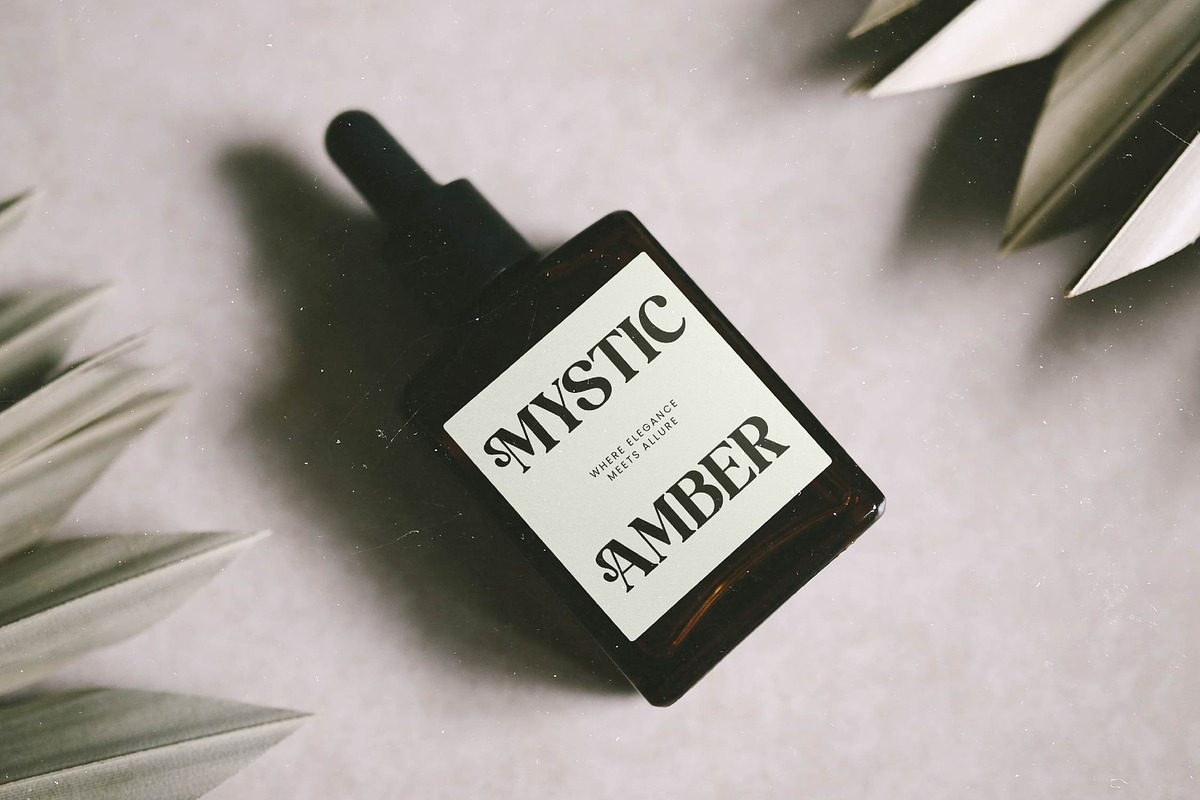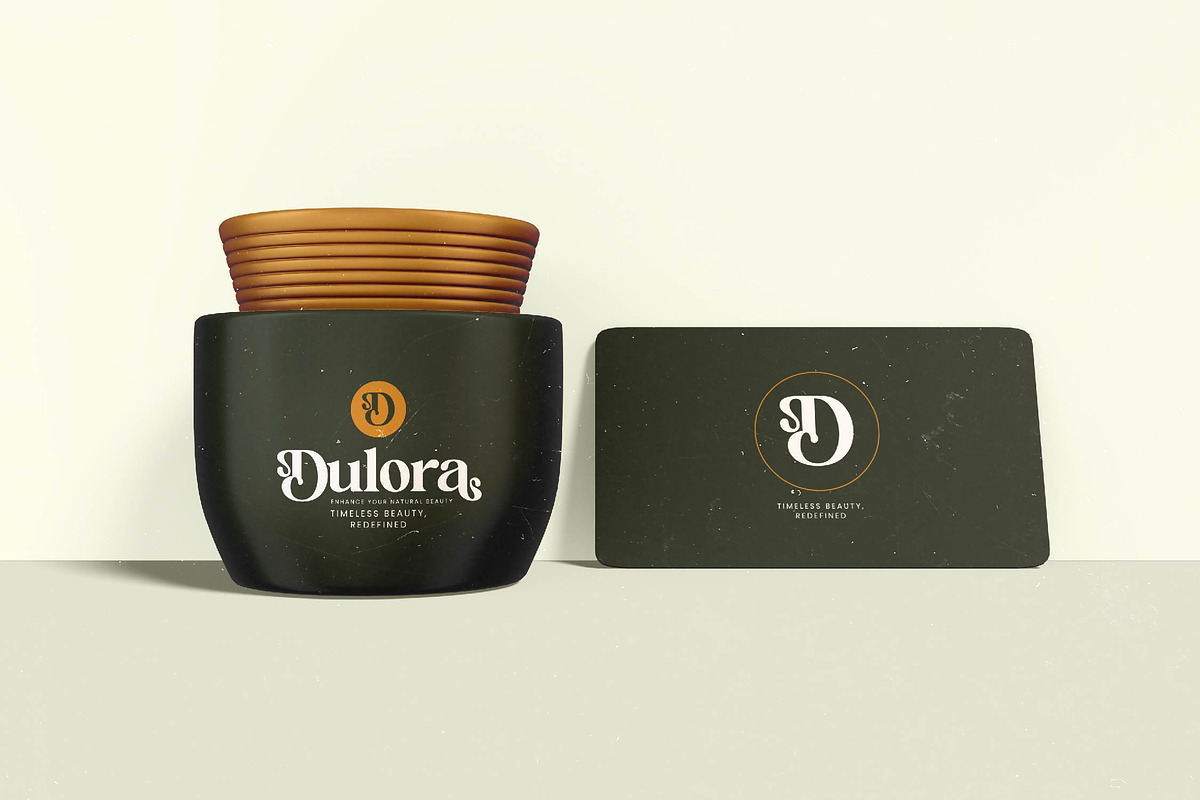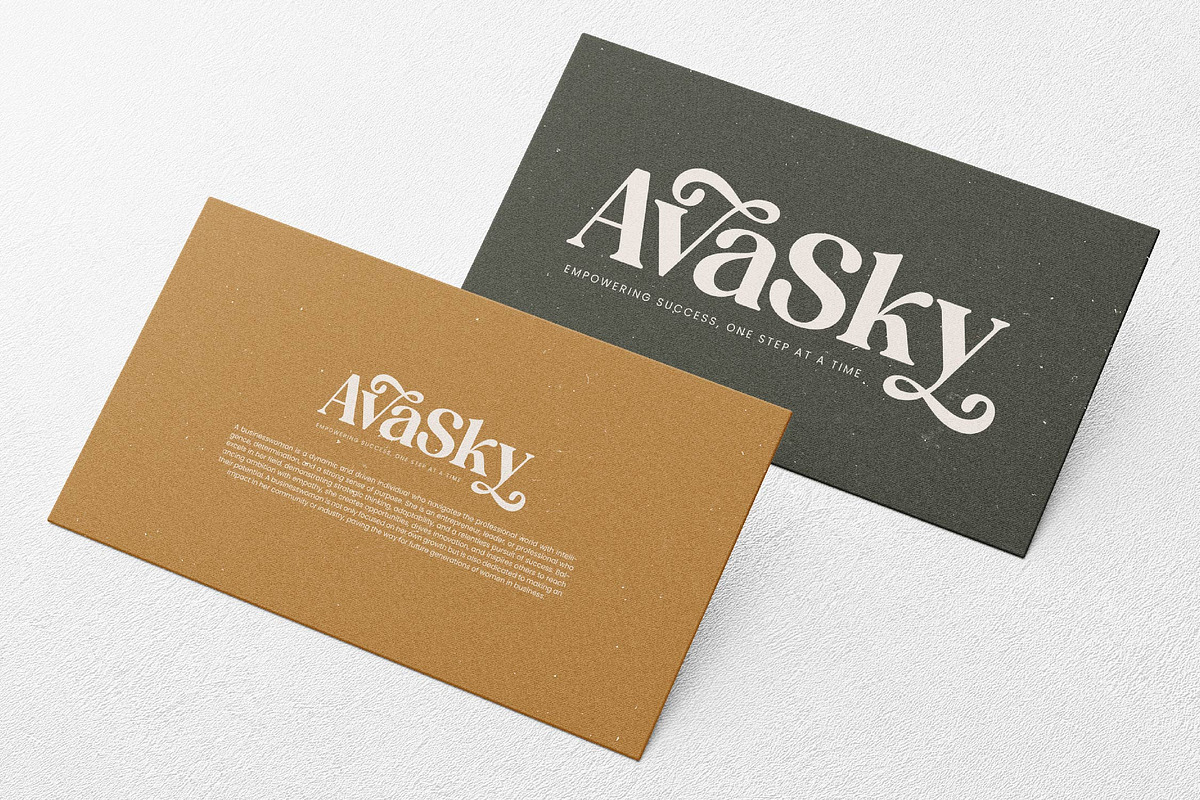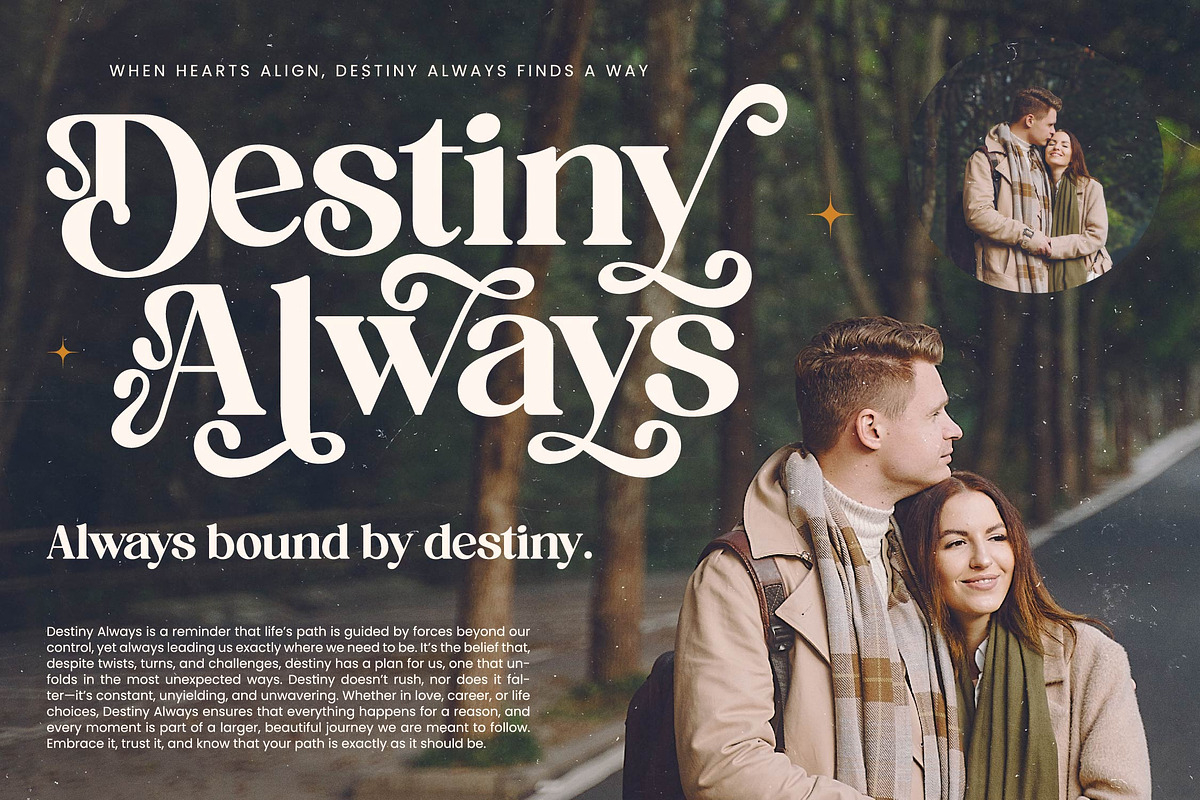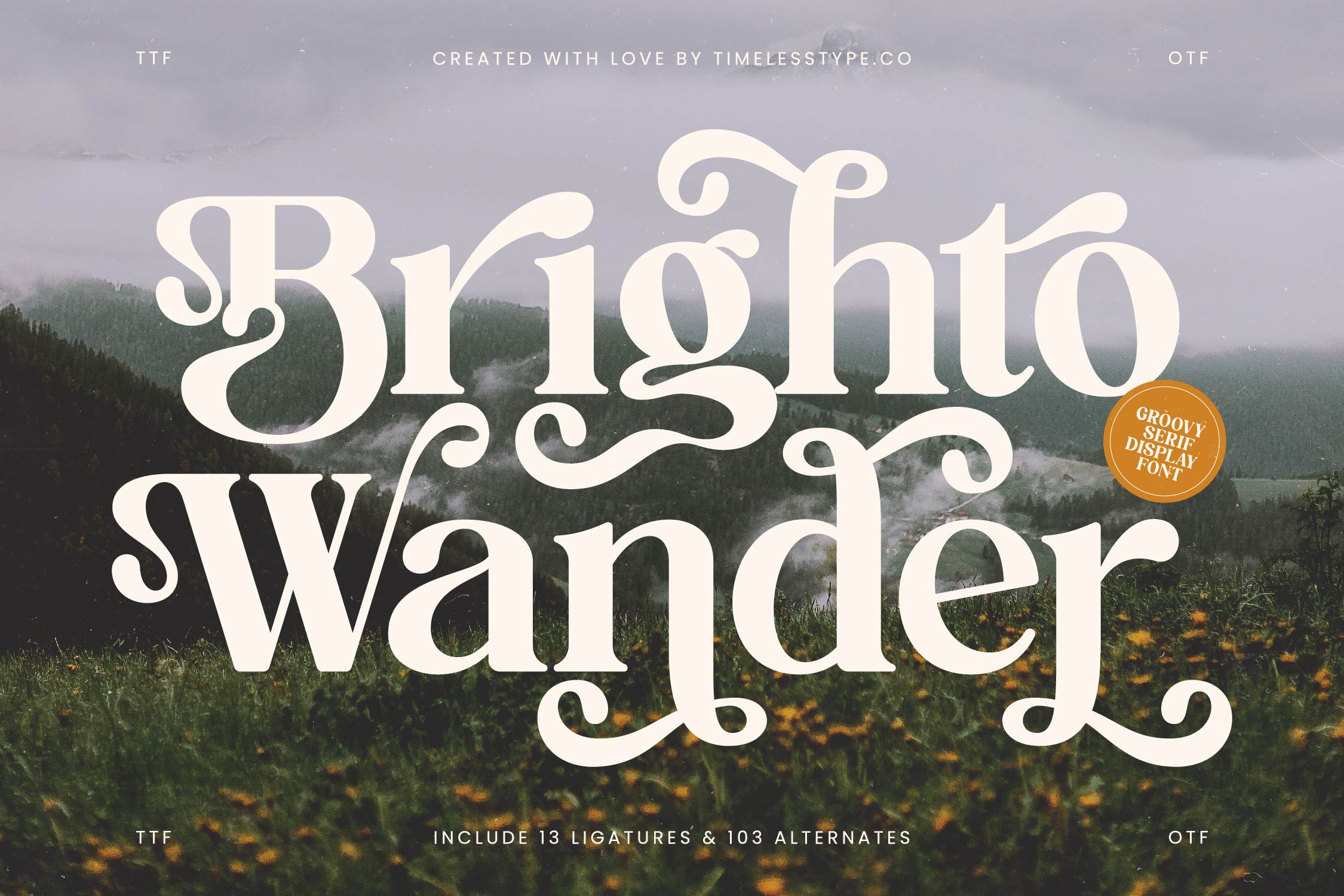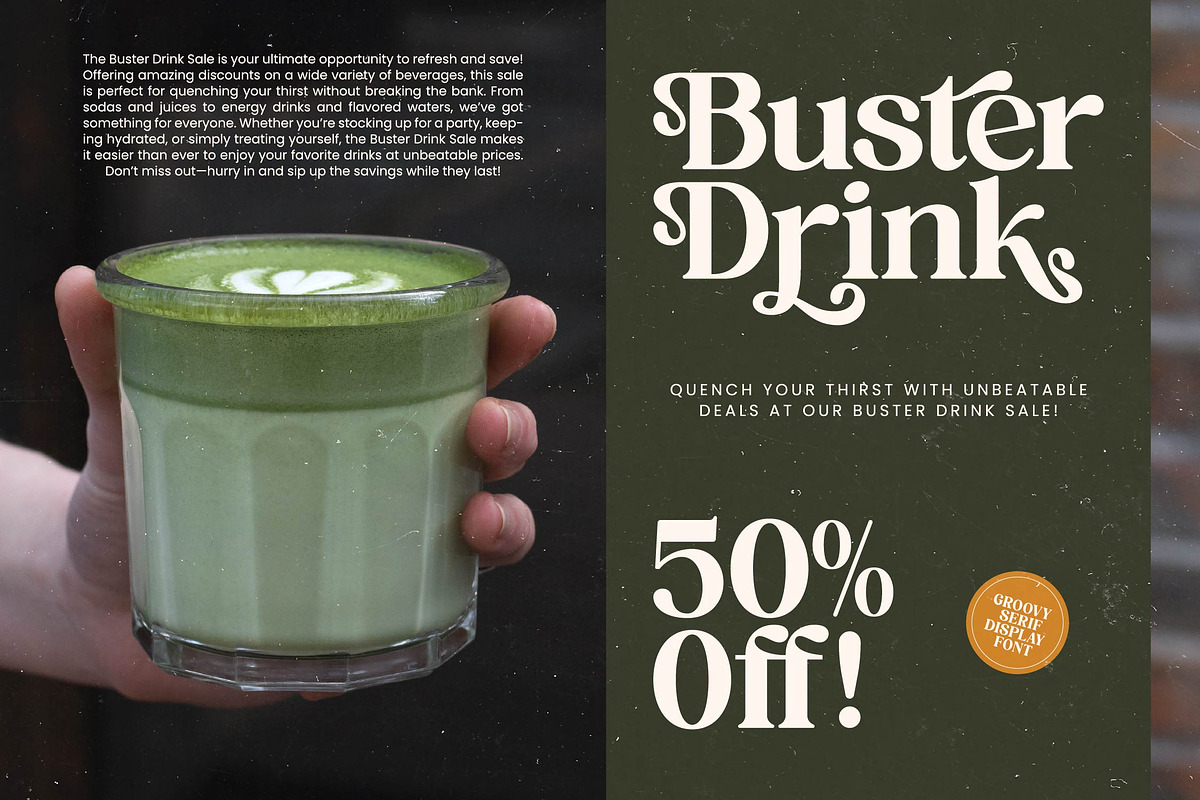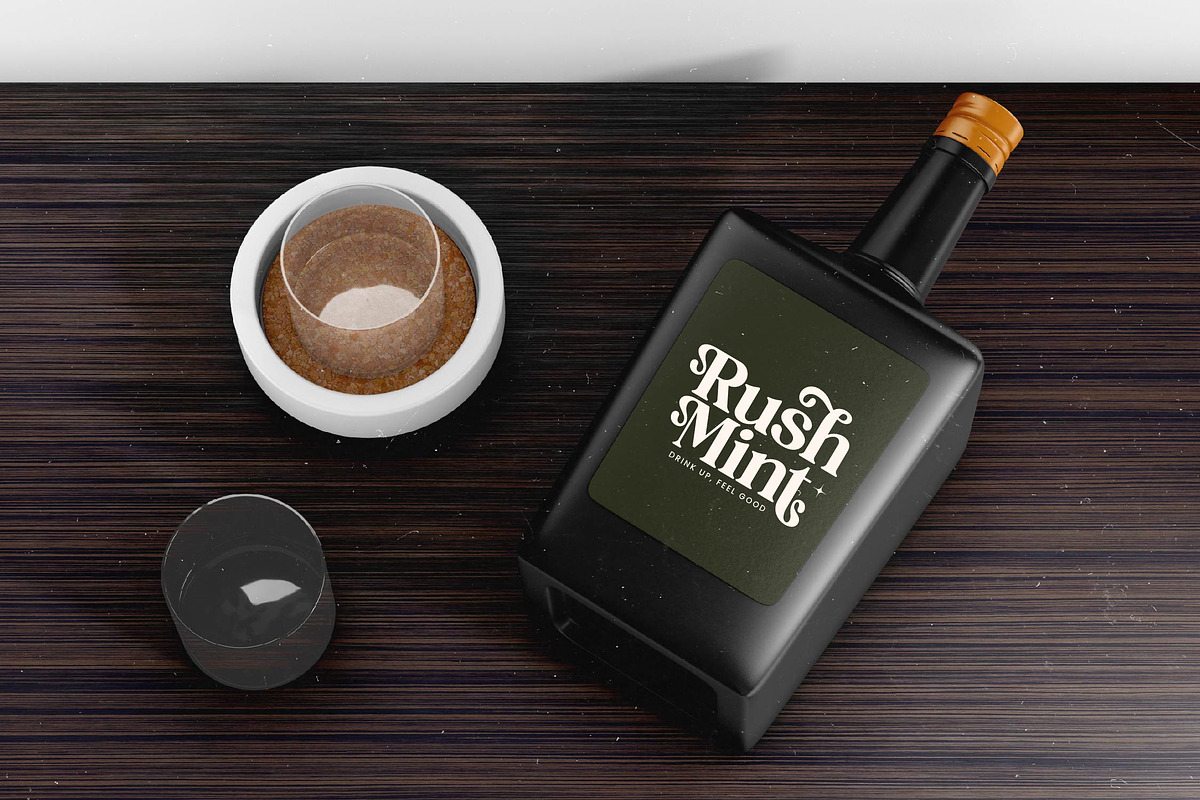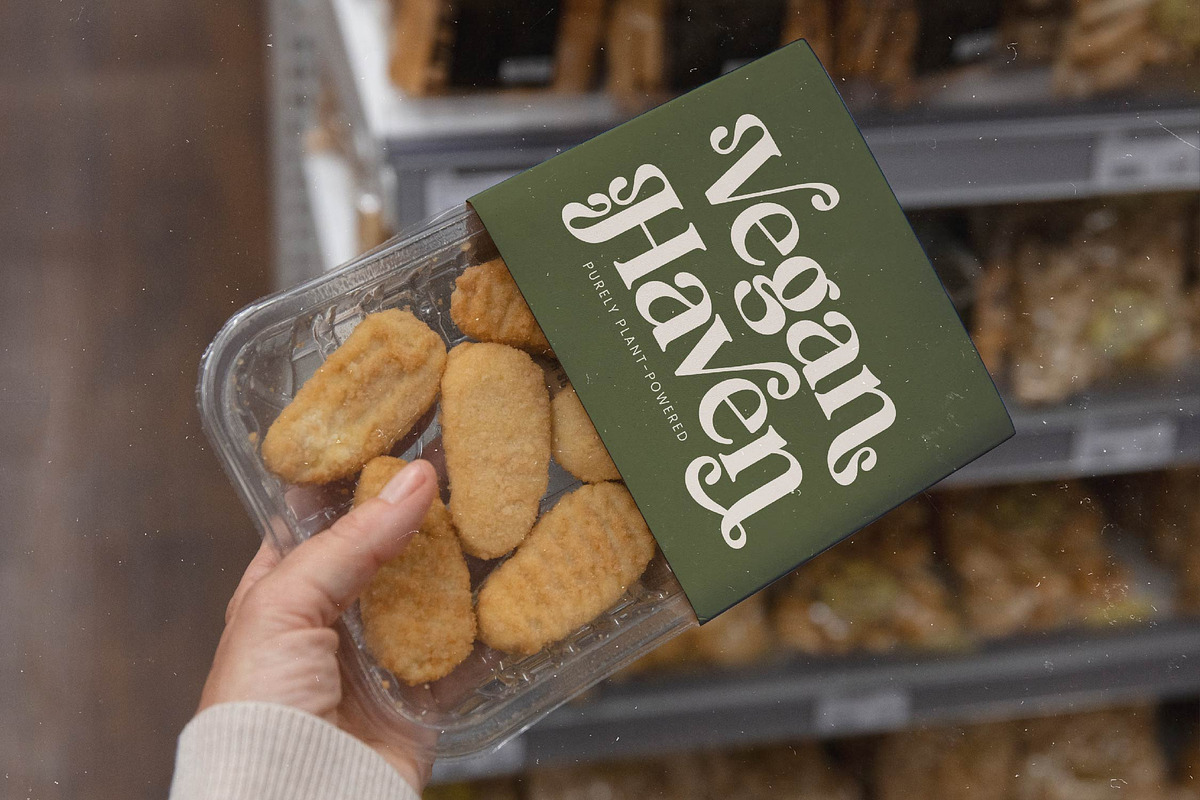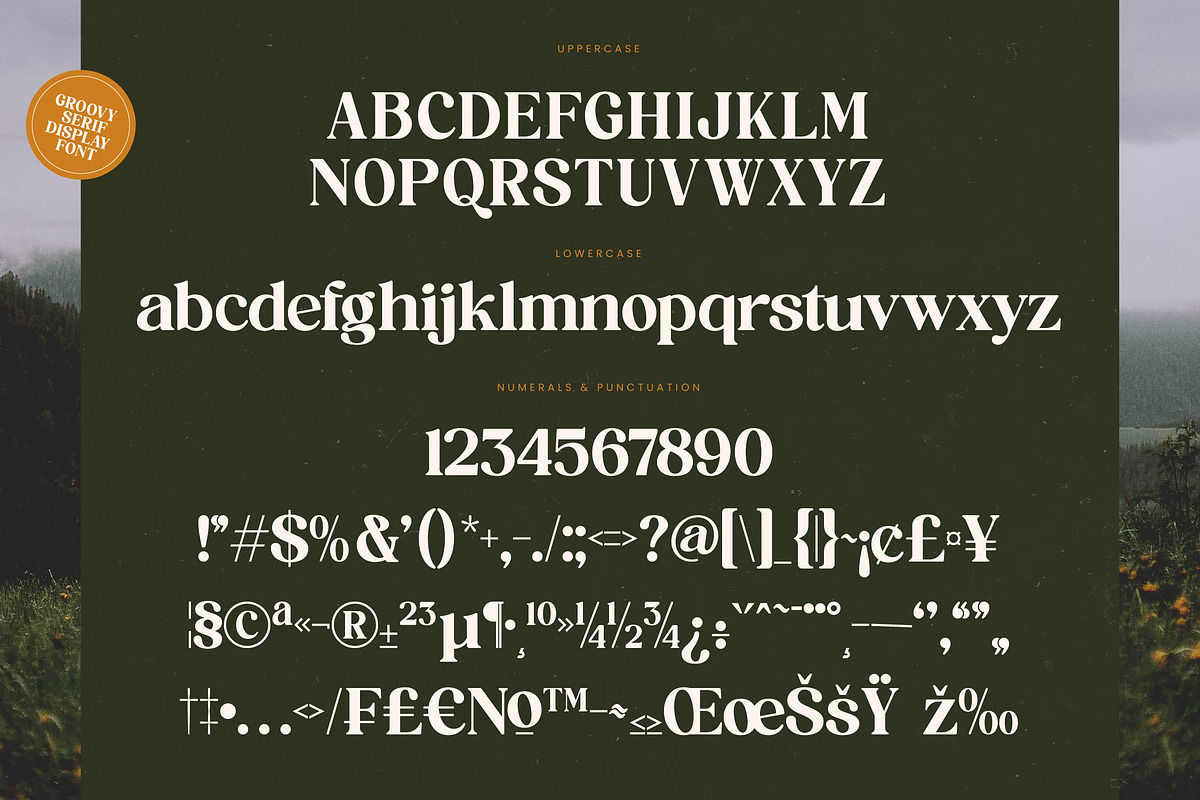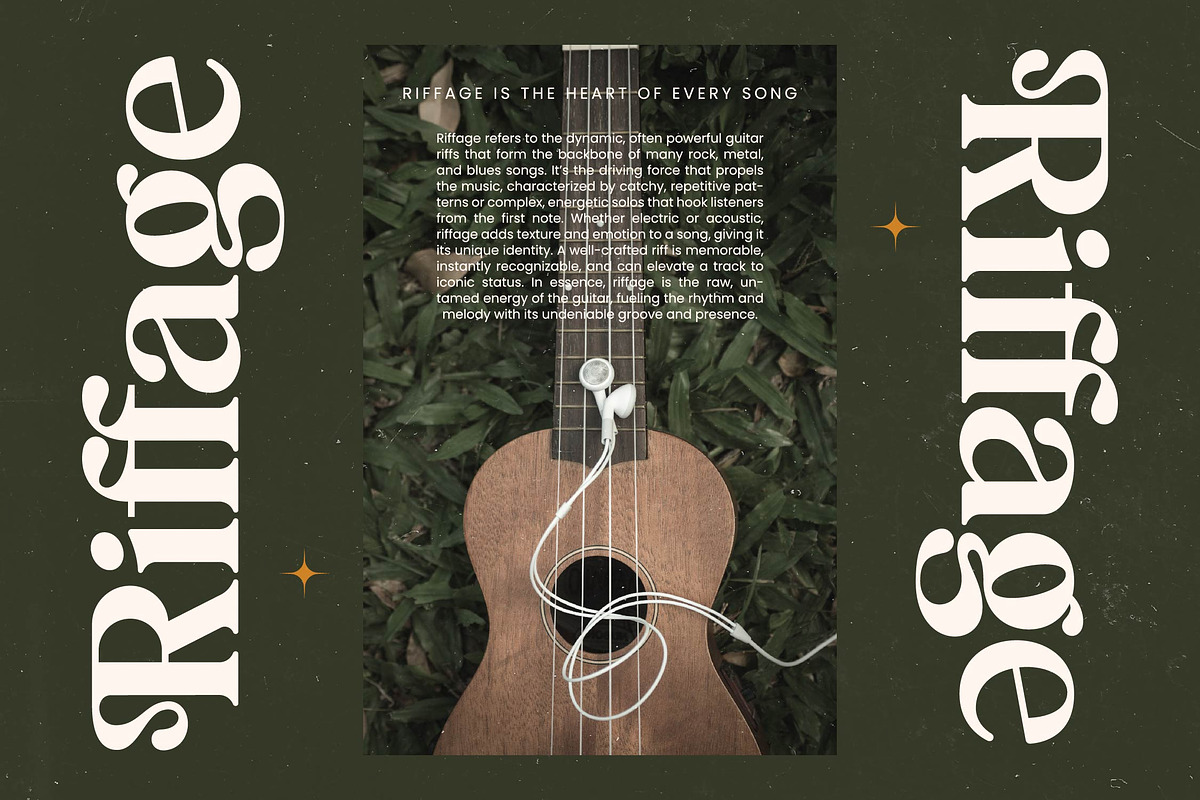
Brighto Wander Retro Serif Font
Let your creativity roam free with the enchanting curves of Brighto Wander, a typeface designed to capture the spirit of exploration and refined nostalgia. This font dances across the page with a rhythmic grace that instantly elevates any visual narrative to a work of art.
Inspired by the misty allure of forest trails and the nostalgic warmth of 1970s aesthetic movements, this face bridges the gap between wild nature and sophisticated artistry. It draws from a deep well of vintage botanical illustrations and classic psych-rock poster art to create something entirely timeless.
This modern serif display creates a sense of effortless sophistication, making it the ultimate tool for luxury typography projects. With its high-contrast serif strokes, it provides an unforgettable editorial font experience that ensures maximum branding impact for every headline.
Perfectly aligned with the current modern serif trend, this typeface meets the growing demand for editorial display fonts that feel human, organic, and soulful. It stands out in a sea of sterile designs by offering character-driven typography that speaks directly to the emotions of your audience.
Whether you are working on a high-end logo design or a cohesive identity branding suite, its versatile nature excels in editorial layouts and product packaging. It is an exquisite choice for a bohemian wedding invitation or a bold, high-concept fashion lookbook.
Enhance your layouts using the extensive range of ligatures and alternates that provide endless customization options for your text. Complete with elegant swashes and full multilingual support including international characters, this font is ready for global creative ventures.
- Ligature 13 Alternate 103